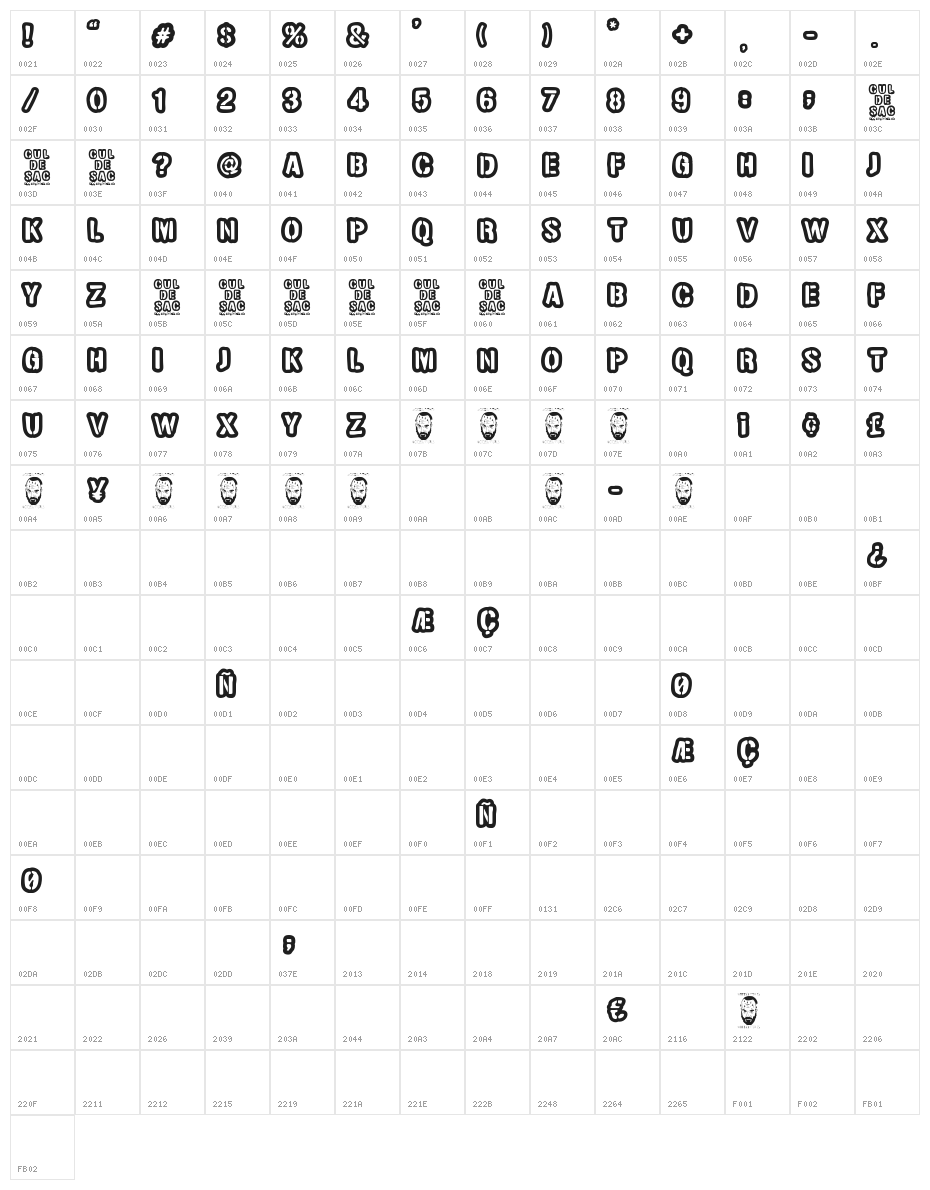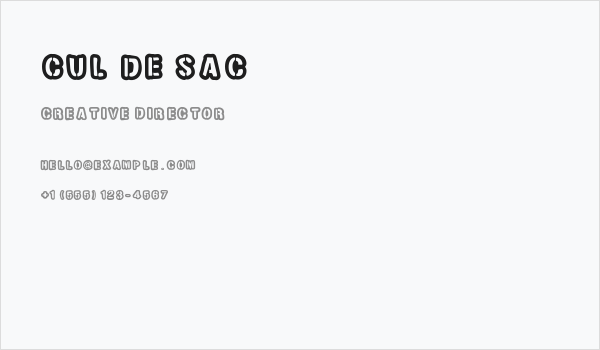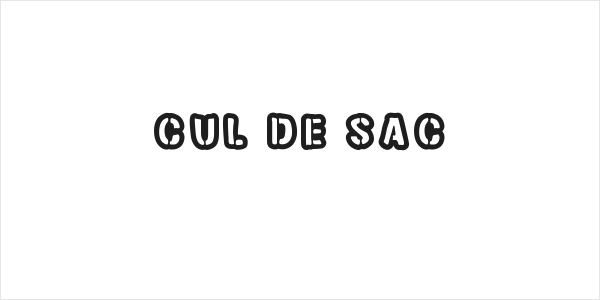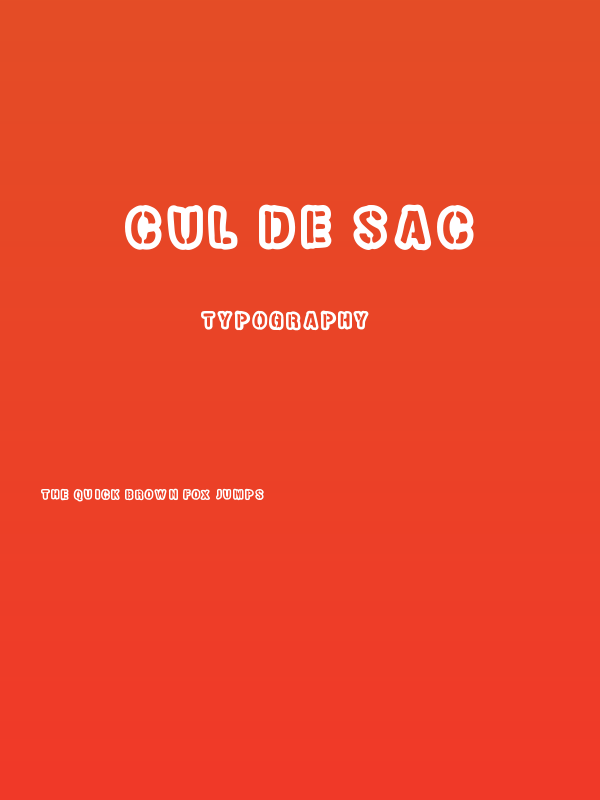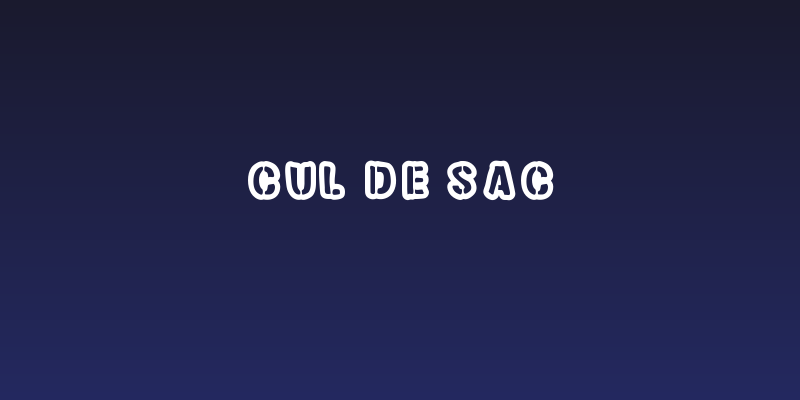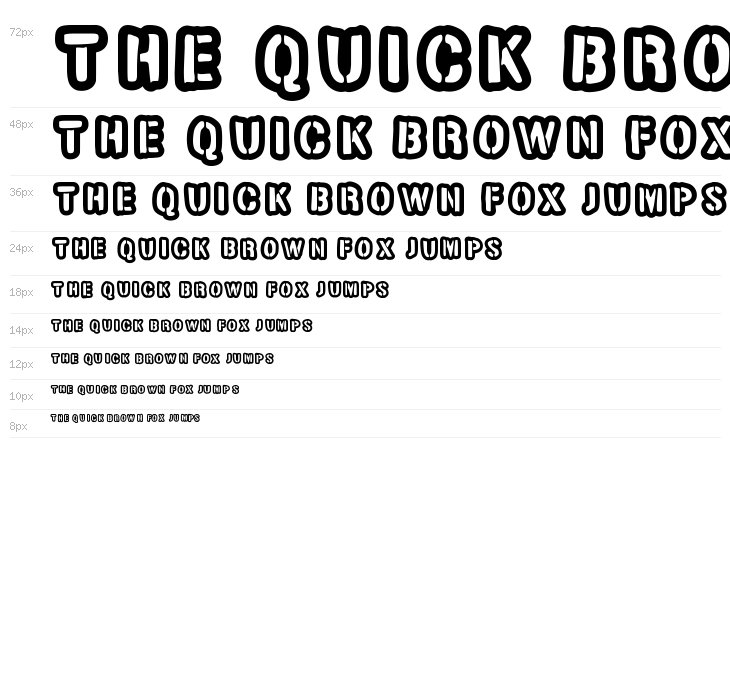
Cul de sac Font
Cul de sac Description
This font features bold, rounded characters with a playful and dynamic outline effect. Each letter is encapsulated in a thick black border, creating a striking contrast against the white interior. The style is reminiscent of retro or comic book aesthetics, with a touch of whimsy and fun. The uppercase and lowercase letters maintain a consistent size and shape, providing a uniform appearance. Numbers and special characters follow the same design principles, ensuring a cohesive look across all glyphs. The font's unique style makes it stand out, ideal for projects that require a bold and eye-catching typeface.
| Overall Style | Retro, Playful |
| Proposed Projects | Perfect for comic books, children's books, posters, and playful branding. |